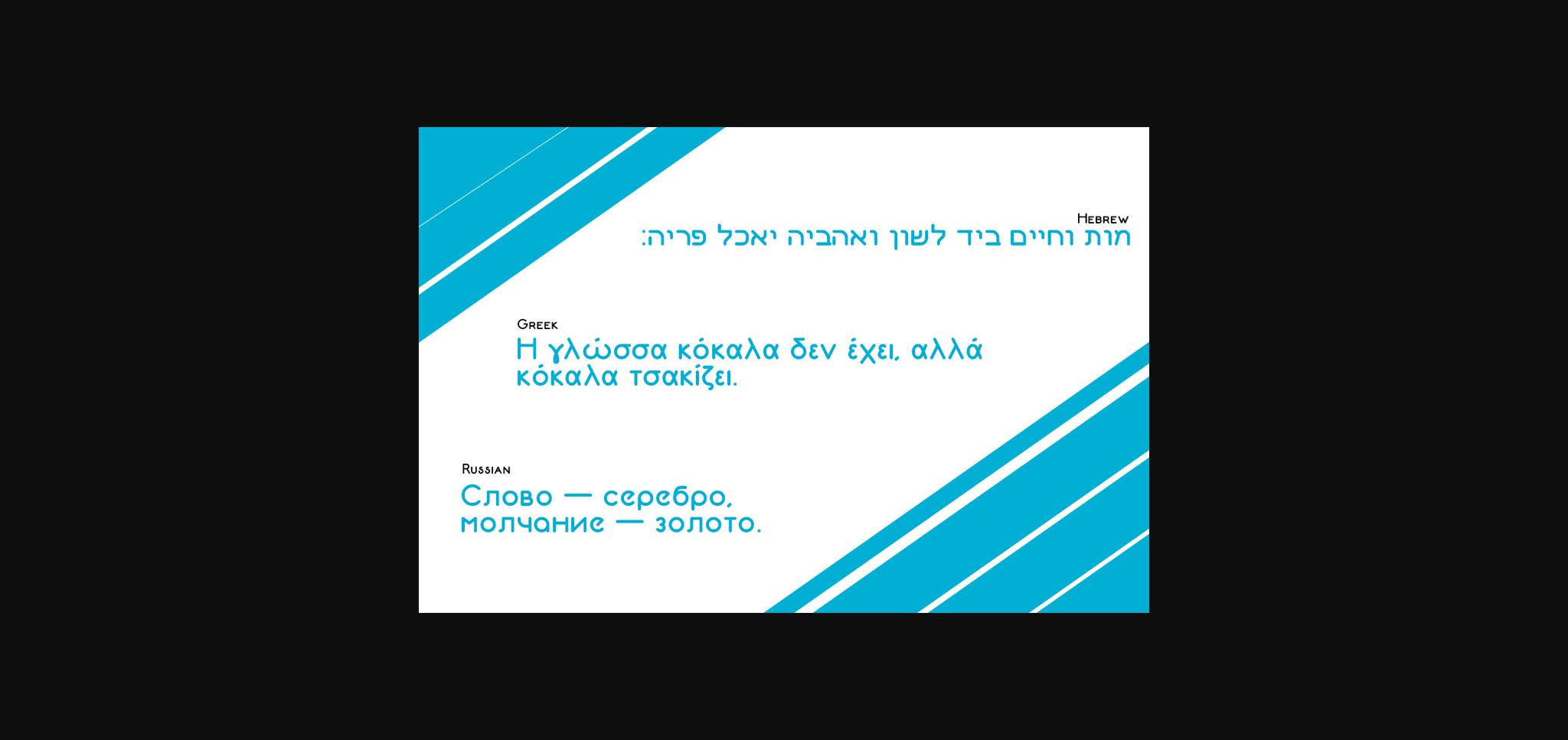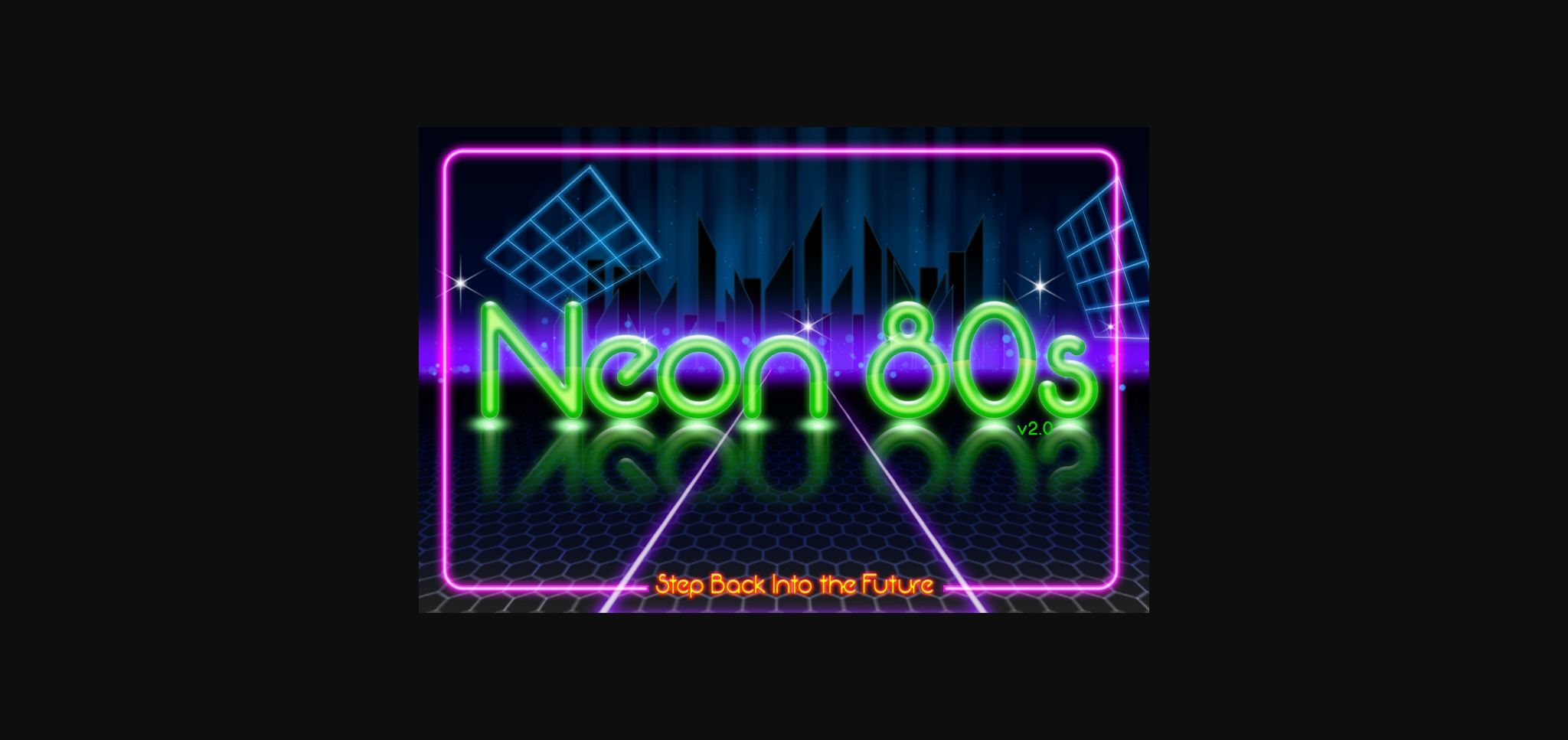
About Neon 80s Font
Back to the future! Neon 80s feels playfully nostalgic and delivers an incredible vintage aesthetic. Use this sans serif font to add that special retro touch to any design idea you can think of!